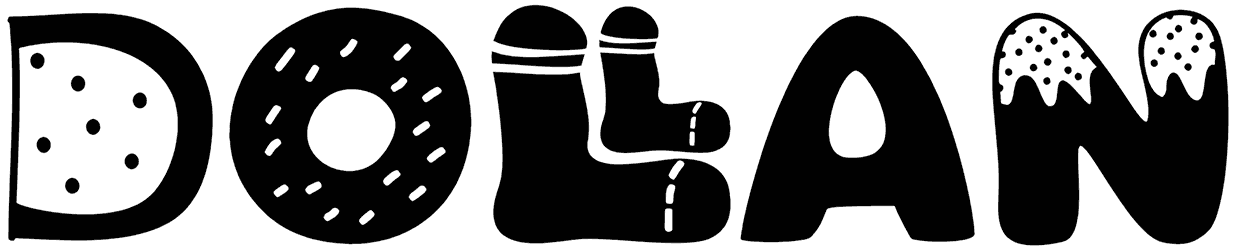
Dollan Font
If you are in the mode of adding a natural touch to your content, we offer you to use a decorative font such as Dollan in designing posters, illustrations, book covers, social media posts, and web pages.
This donut font contains various natural symbols, including snow, rain, and sun, so you can share a sense of softness, freshness, beauty, love, and vivacity with your audience. As the last word, it is better to overlook the lack of numbers.